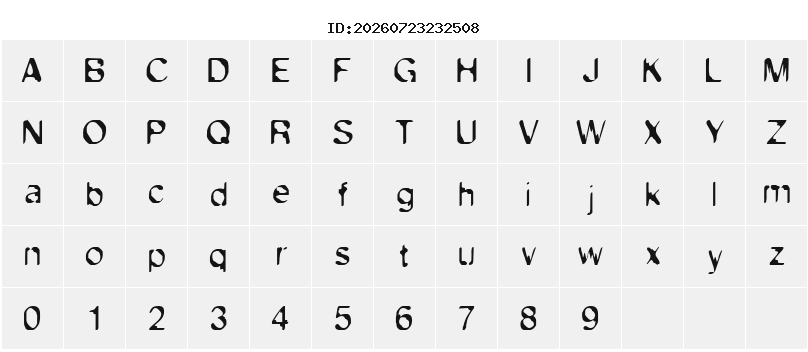
Exsect Preview
About Exsect.ttf
Exsect.ttf is a modern, elegant sans-serif font designed for ultimate readability and visual harmony. Perfect for branding, headlines, web design, and print materials.